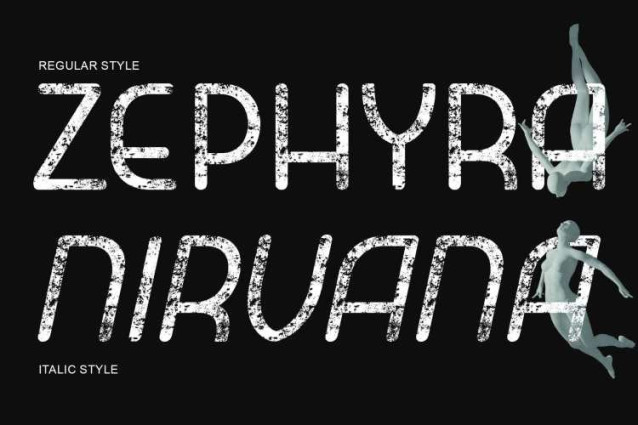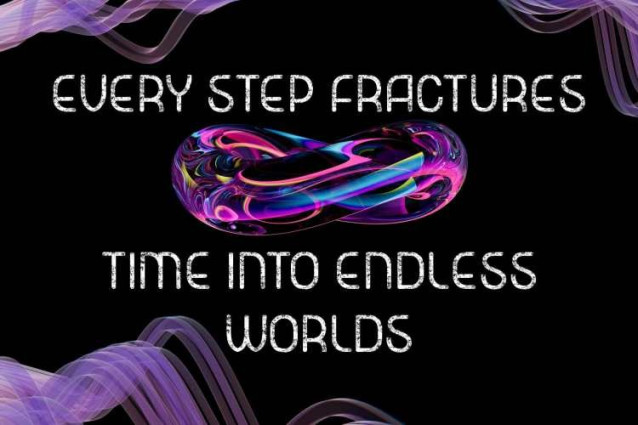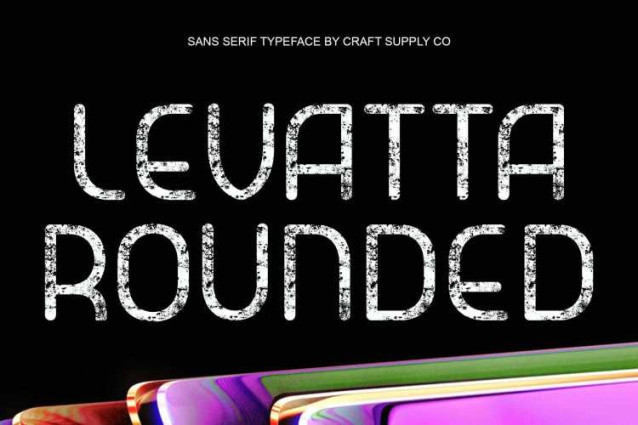
Levatta Rounded Stamp Font
Levatta Rounded Stamp Font – This is a modern sans serif font defined by its long, slim proportions and graceful shapes. The futuristic influence creates a sleek appearance, making it stand out in projects that require elegance with a progressive edge.
Stamp Texture for Unique Personality
The added stamp texture enriches the clean sans serif foundation with warmth and artistry. This handcrafted touch softens the futuristic design, giving the font a tactile and authentic quality that enhances its visual impact.
Blending Refinement with Artistry
By merging modern sophistication with vintage character, achieves a balanced identity. It radiates refinement while maintaining a creative, artisanal impression ideal for projects that seek both elegance and originality.
Perfect for Luxury Branding and Editorial Design
Whether featured in luxury branding, vintage inspired posters, or editorial layouts, adapts seamlessly. Its combination of futuristic design and textured personality ensures a striking presence that elevates any creative project.